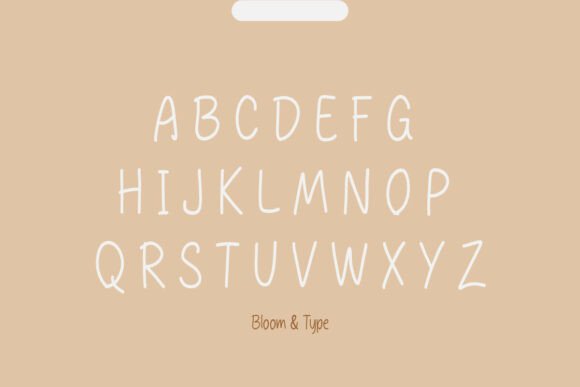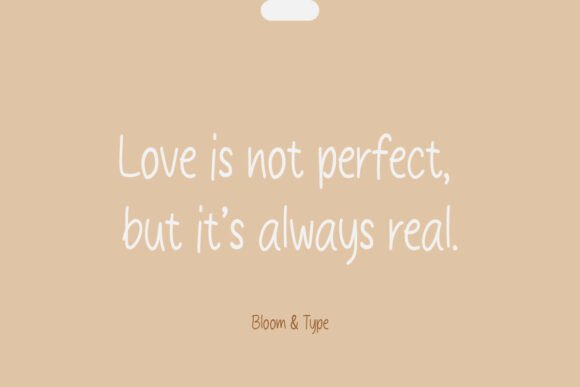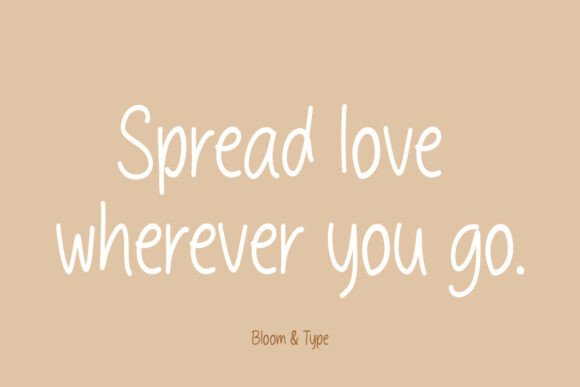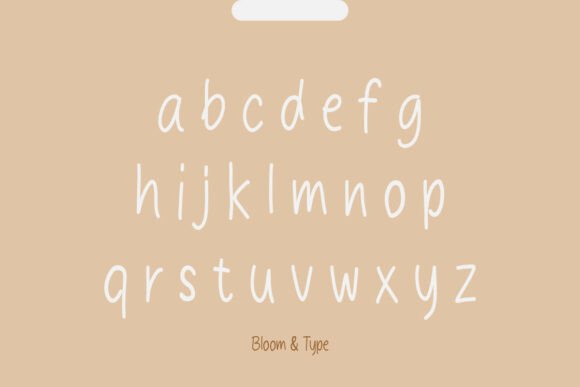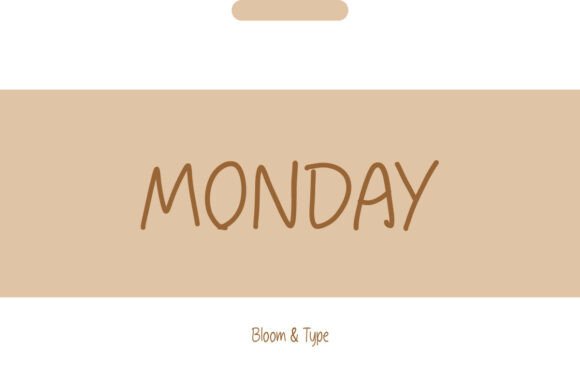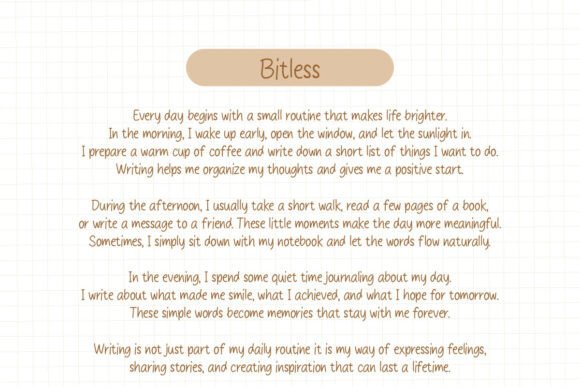
Introducing Bitless Font: The Friendly Handwritten Font for Creative Projects
Are you looking for a font that captures the natural charm of everyday writing? Look no further than Bitless Font, a friendly handwritten font designed to bring a warm and approachable personality to your creative projects. With its smooth, rounded strokes and slightly imperfect letterforms, Bitless Font is perfect for designers and crafters who want to add a personal touch to their work.
The Characteristics of Bitless Font
Bitless Font is a carefully crafted font that is designed to feel casual yet expressive. Its soft handwritten style makes it perfect for designs that need to feel human, inviting, and easy to read. The font features:
- Uppercase & Lowercase letters
- Numbers & punctuation
- Natural handwritten style
- Clean and readable letterforms
- Multilingual support
The Benefits of Using Bitless Font
Bitless Font is a versatile font that can be used across a wide range of creative projects, from inspirational quotes and social media graphics to greeting cards and branding materials. Here are just a few benefits of using Bitless Font:
- Authentic and Relaxed Feel: Bitless Font brings a relaxed and authentic touch to your designs, making them feel more approachable and human.
- Easy to Read: The clean and readable letterforms of Bitless Font make it perfect for designs that need to be easy to read, such as body text or quotes.
- Multilingual Support: With multilingual support, Bitless Font can be used to create designs for a global audience.
- Balanced Spacing: The balanced spacing of Bitless Font ensures that your designs look beautiful and professional, whether you’re creating digital or print materials.
Bitless Font is perfect for designers and crafters who want to add a personal touch to their work. Whether you’re creating:
- Inspirational quotes and posters
- Branding materials and packaging
Bitless Font is the perfect choice. Its friendly and approachable personality makes it perfect for designs that need to feel human and inviting.
Why Choose Bitless Font?
With so many fonts to choose from, why choose Bitless Font? Here are just a few reasons:
- Unique and Handwritten Style: Bitless Font has a unique and handwritten style that sets it apart from other fonts.
| Font Name | Bitless Font |
| Author | Bloom & Type |
In conclusion, Bitless Font is a friendly handwritten font that is perfect for designers and crafters who want to add a personal touch to their work. With its smooth, rounded strokes and slightly imperfect letterforms, Bitless Font brings a warm and approachable personality to creative projects. Its versatility, balanced spacing, and multilingual support make it perfect for a wide range of designs, from inspirational quotes and social media graphics to greeting cards and branding materials. So why wait? Download Bitless Font today and start creating beautiful, human, and inviting designs!